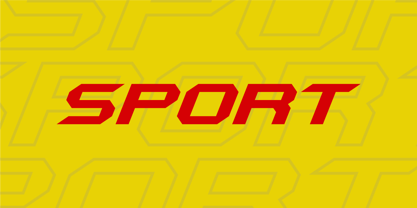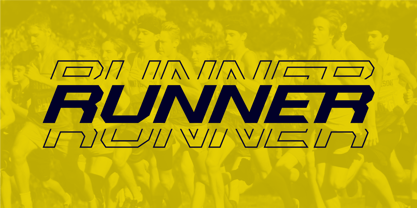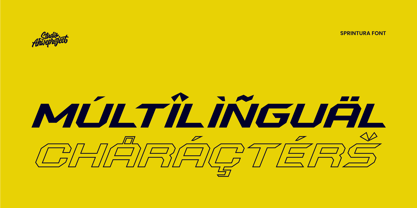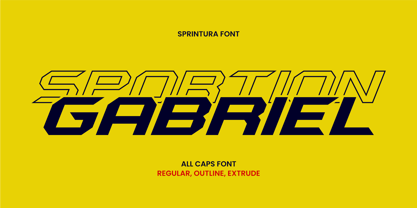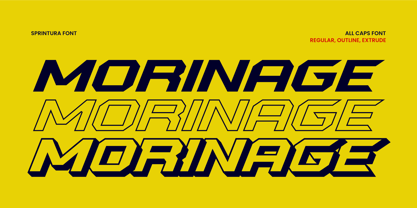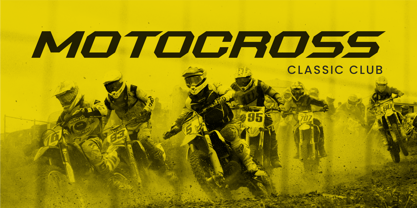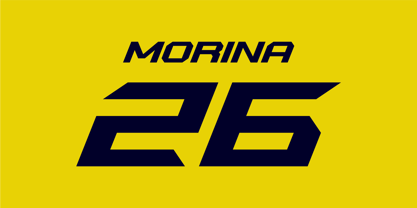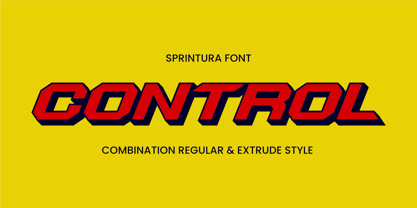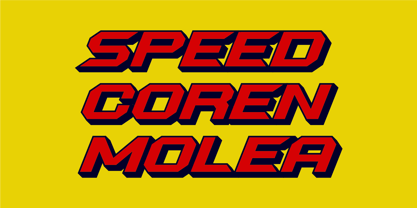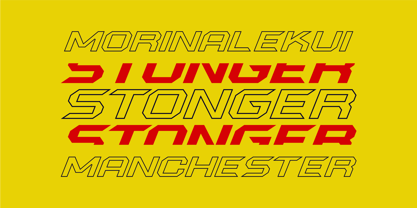
Sprintura
by ahweproject
The Sprintura Font Family was designed by Dida Ahluddin and published by ahweproject. Sprintura contains 3 styles and family package options.
Sprintura is an all-caps font featuring bold and dynamic characters, perfect for designs that aim to convey a sense of speed and modernity. Its sharp, angular letterforms create a strong motion effect, making it ideal for branding, posters, or design projects with a technology or sports theme. The outline and extrude versions add versatility, offering sleek 3D effects and stylish outlines. This font is well-suited for projects that require a futuristic vibe with an emphasis on speed and power.